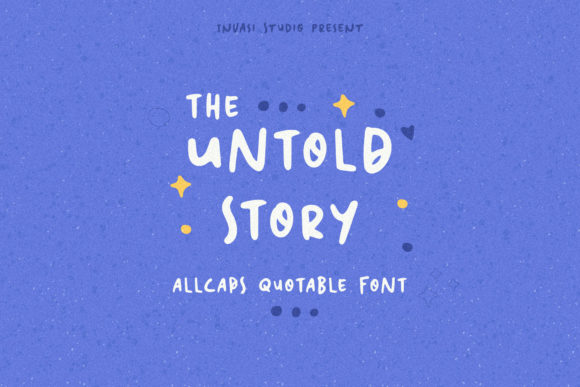
Dive into the world of The Untold Story Font, a captivating handwritten font that dances across the digital canvas with grace and charm. This font is more than just a collection of characters; it's an artistic expression that beckons you to tell your story with a touch of whimsy and enchantment.
As you craft your designs with The Untold Story Font, you'll discover a universe of possibilities. Imagine your words taking on a life of their own, flowing seamlessly from one letter to the next, as if written by the hand of a master storyteller. Whether you're designing eye-catching headings, delightful flyers, heartwarming greeting cards, or unique product packaging, this font will add a touch of magic to every project.
Let your imagination soar as you explore the endless applications of The Untold Story Font. Envision book covers that captivate readers with their enchanting titles, printed quotes that inspire and uplift, logotypes that stand out with their playful personality, and apparel designs that radiate creativity and joy. This font is your passport to a world where your designs become works of art.
The Untold Story Font is not just a font; it's a gateway to a world of storytelling and self-expression. With its PUA encoding, you'll have effortless access to a treasure trove of glyphs and swashes, empowering you to add intricate details and flourishes to your designs. Let your creativity run wild as you uncover the hidden stories within this font, waiting to be told.
Unlock the untold stories that lie within your designs with The Untold Story Font. Let this font be your muse, your companion on a journey of artistic discovery. With its playful spirit and enchanting charm, this font will transform your designs into captivating tales that resonate with your audience.